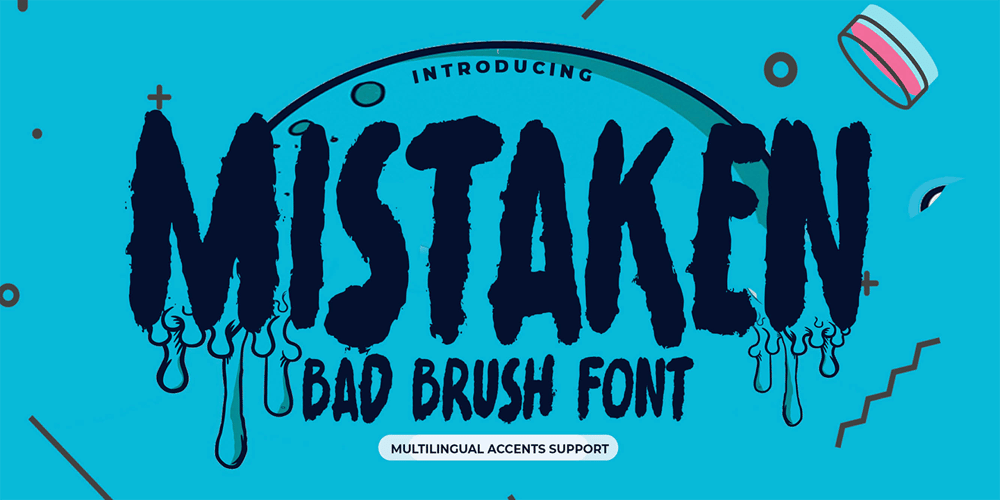
Mistaken Font Family was designed by Abdul Malik Wisnu, Anang Fibriyanto and published by Gassstype. Mistaken contains 1 styles and family package options. Hello Everyone, introduce our new product font Mistaken is a Bad Brush Font.This is a Textured Natural Style and classy style with a clear style and dramatic movement.This font Mistaken is great for your next creative project such as logos, printed quotes, invitations, cards, product packaging, headers, Logotype, Letterhead, Poster, Design this font is great for your creative projects such as watermark on photography, and perfect for logos & branding, invitation,advertisements,product designs, stationery, wedding designs,label ,product packaging, special events or anything that need handwritting taste.That is has charming, authentic and relaxed characteristic more natural look to your text This font is PUA encoded which means you can access all of Alternate glyphs.